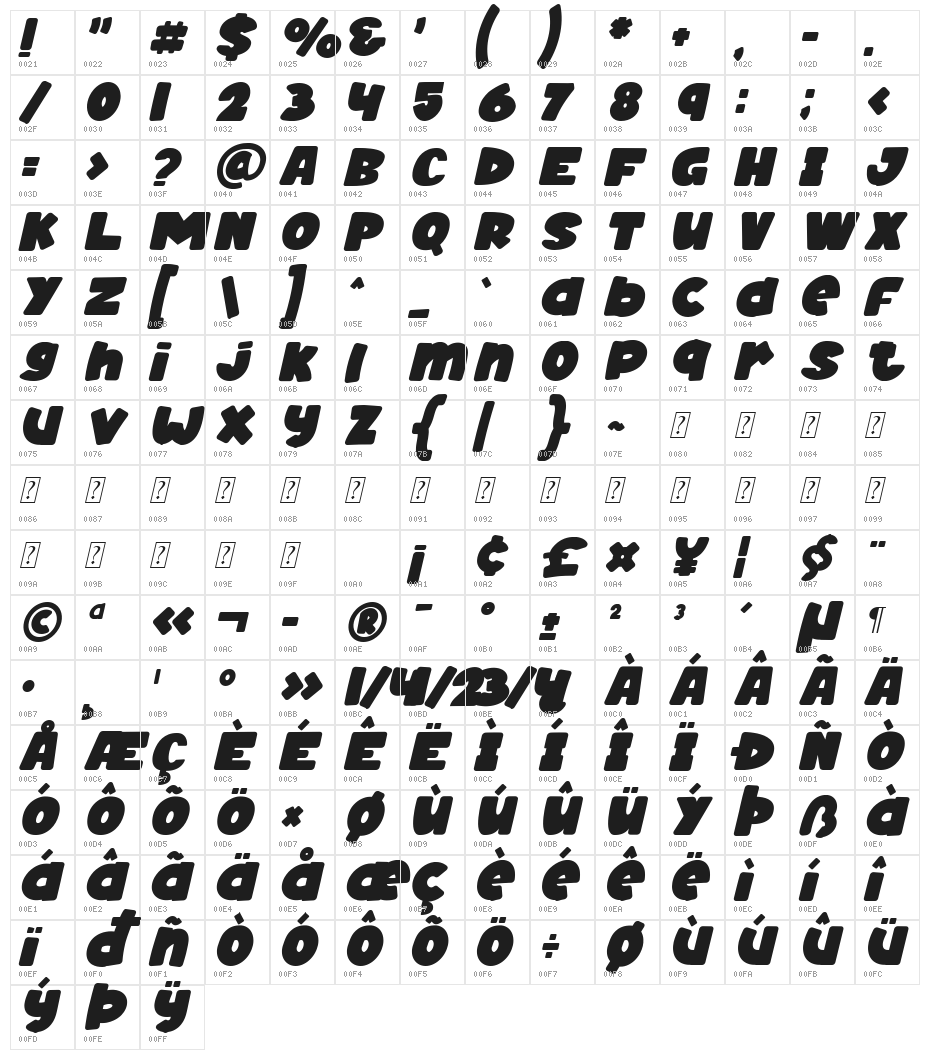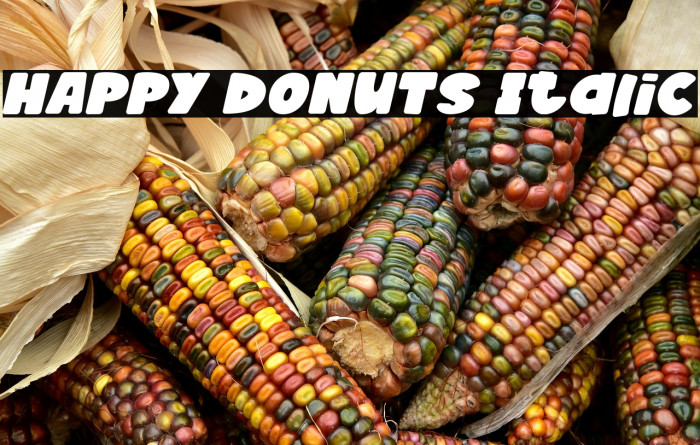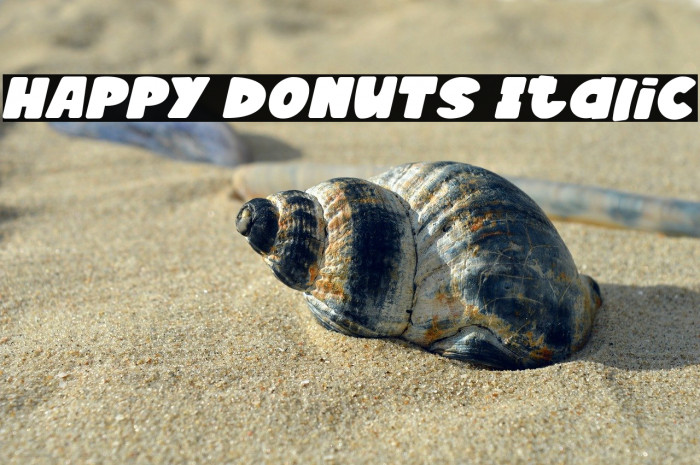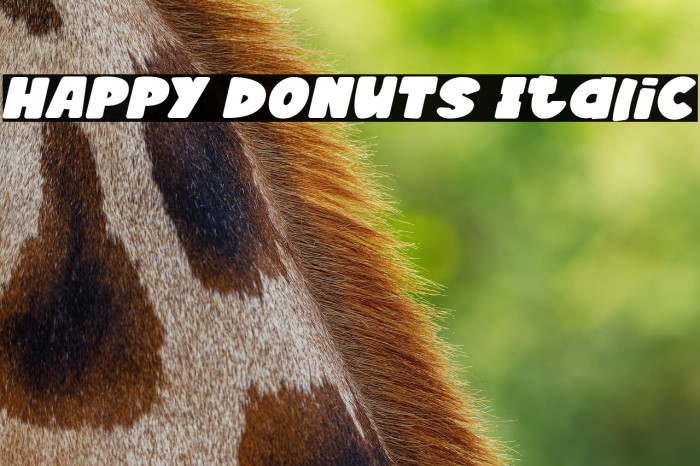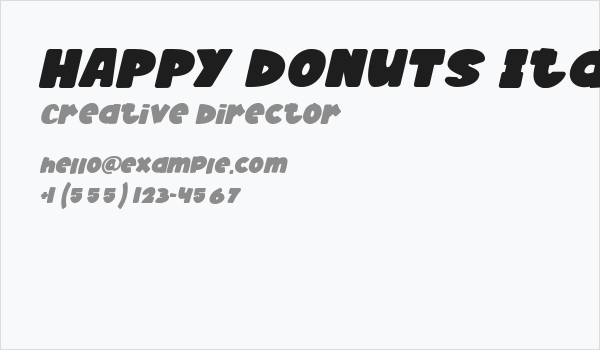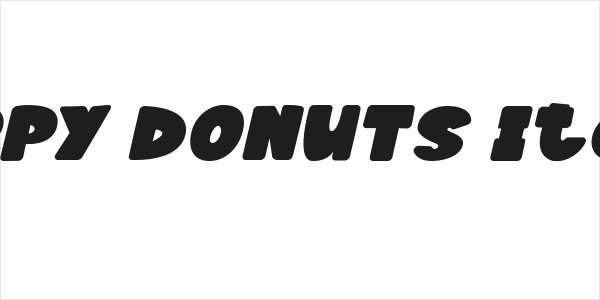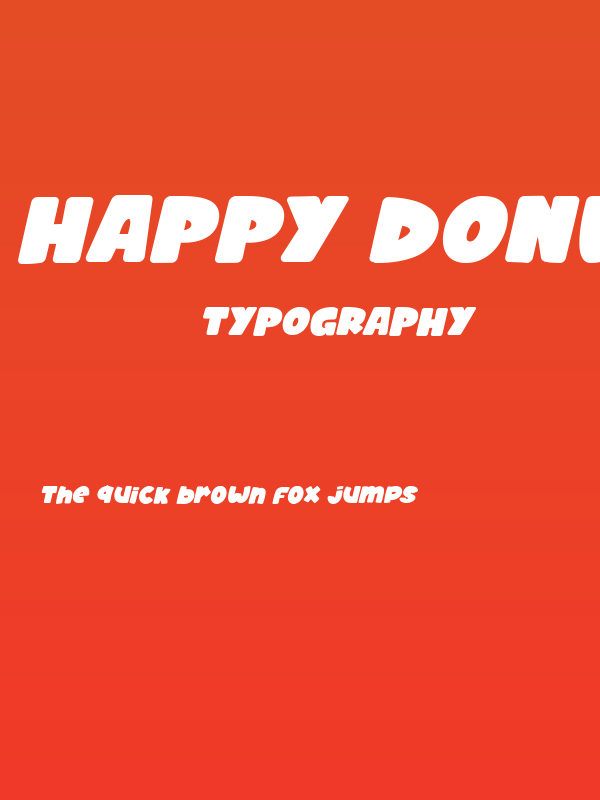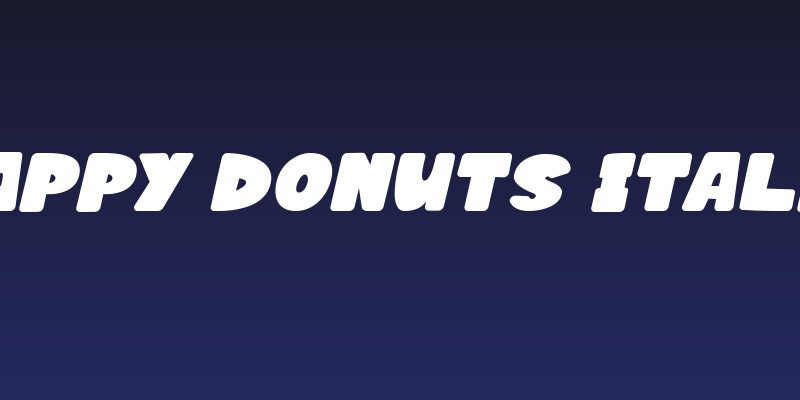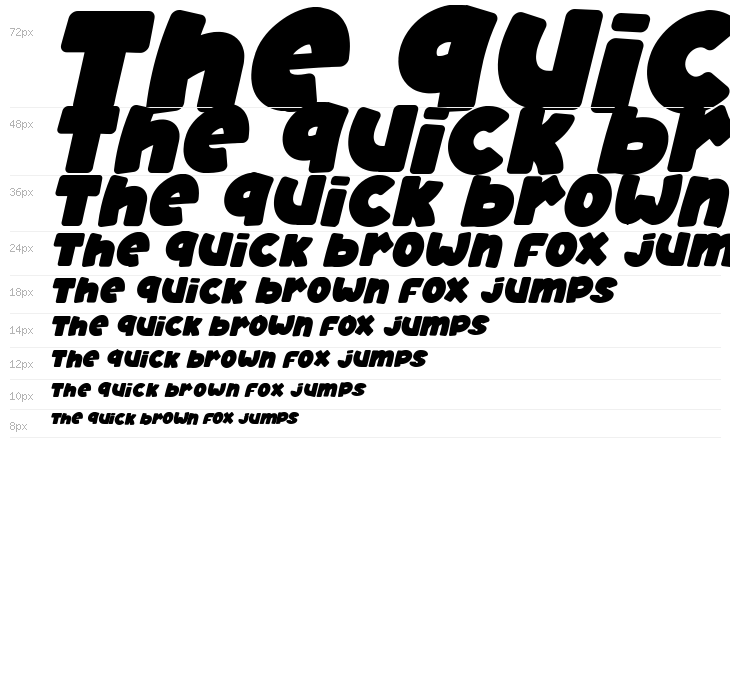
HAPPY DONUTS Italic Font
HAPPY DONUTS Italic Description
This playful and bold font features a chunky, rounded style with a whimsical flair. The letters are slightly italicized, giving a sense of movement and energy. The strokes are thick and consistent, creating a strong visual impact. The overall appearance is friendly and approachable, making it suitable for fun and informal designs. The font includes a full set of uppercase and lowercase letters, numbers, and a variety of special characters. Its boldness and unique style make it stand out, perfect for catching attention.
| Proposed Projects | Ideal for children's books, playful branding, event posters, and merchandise designs. |